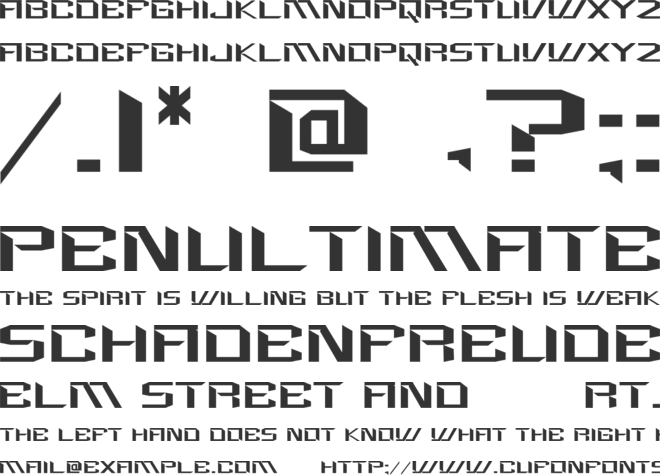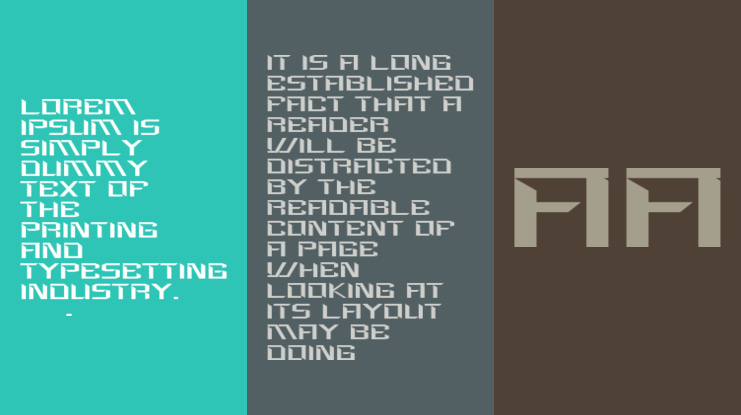
FT Nexrion Font
Inspired by space technology and sci-fi visuals, FT Nexrion brings a bold, sharp, and advanced look to your typography. Its strong geometric shapes and mechanical structure make it perfect for posters, mockups, personal artworks, gaming concepts, and futuristic visual studies.
FT Nexrion font preview